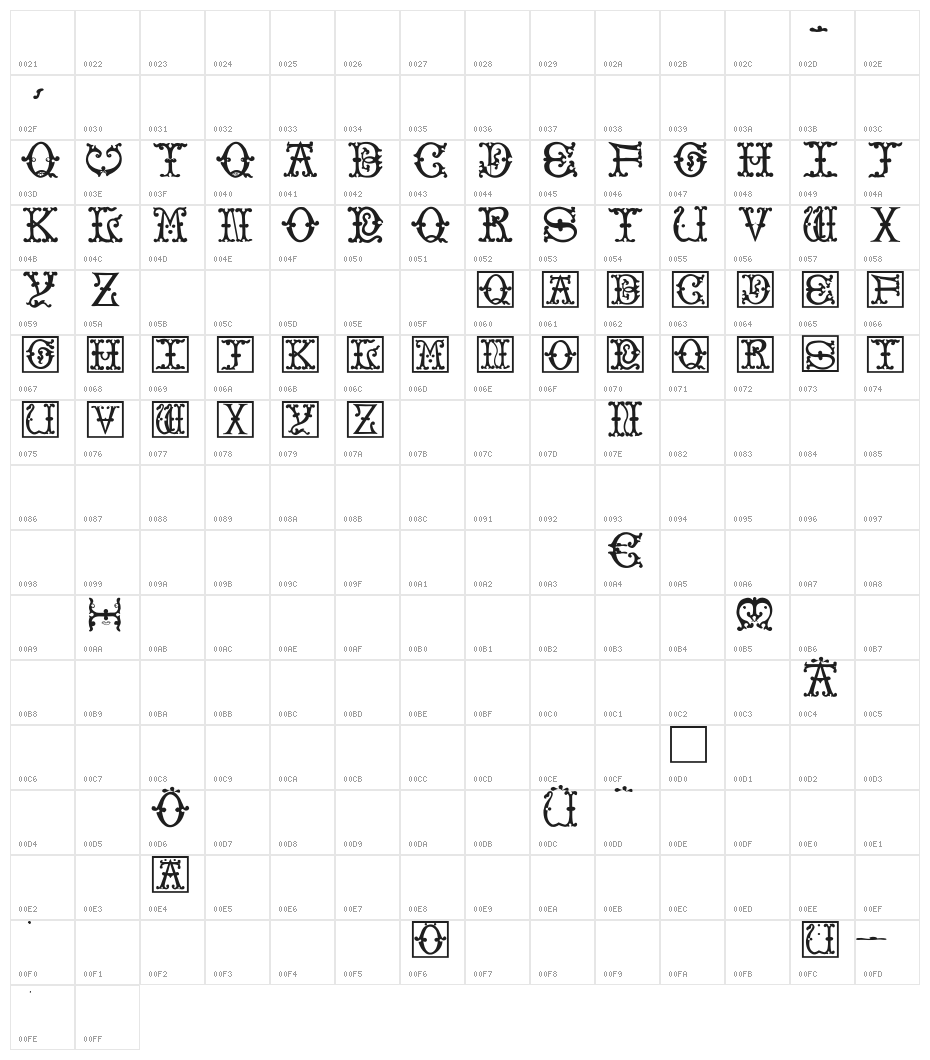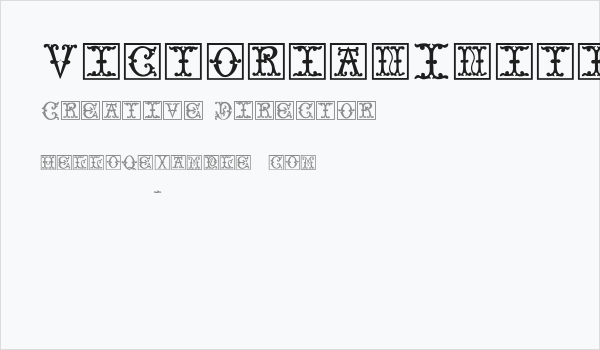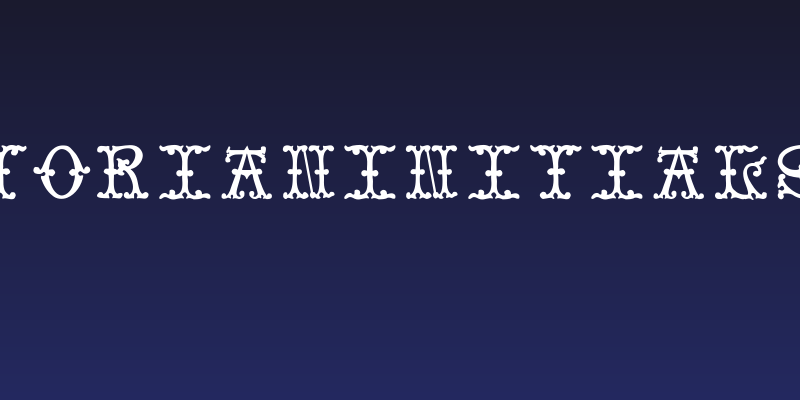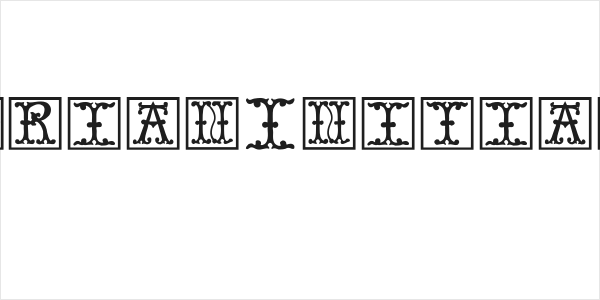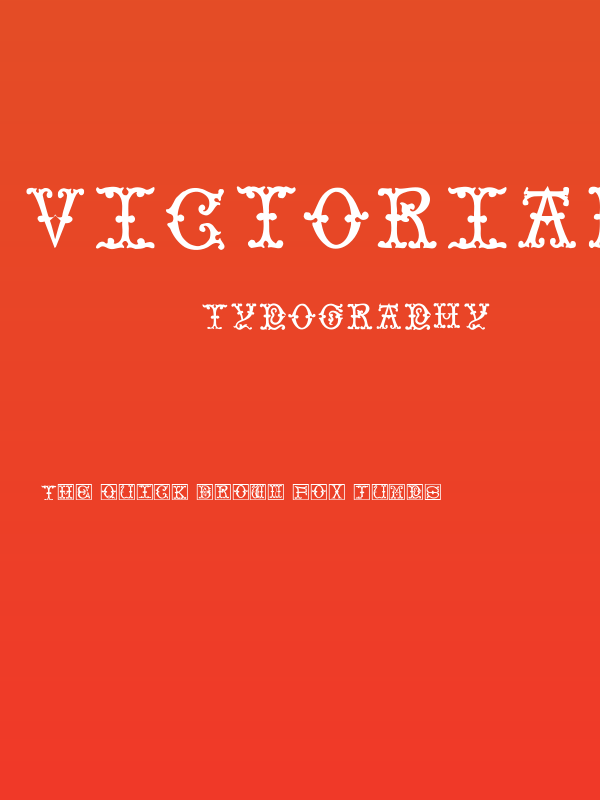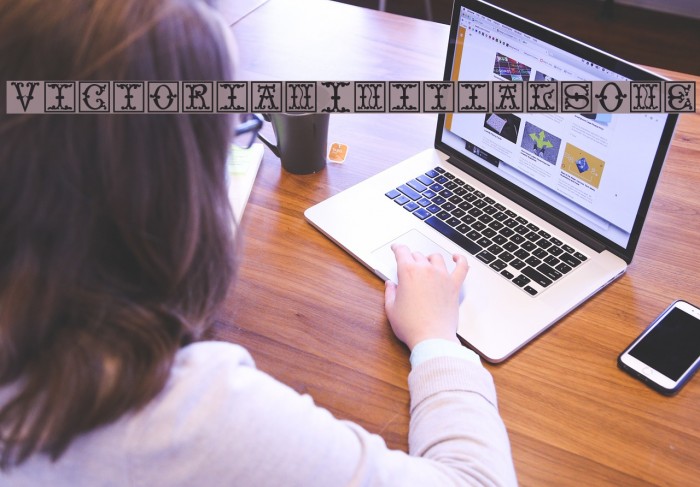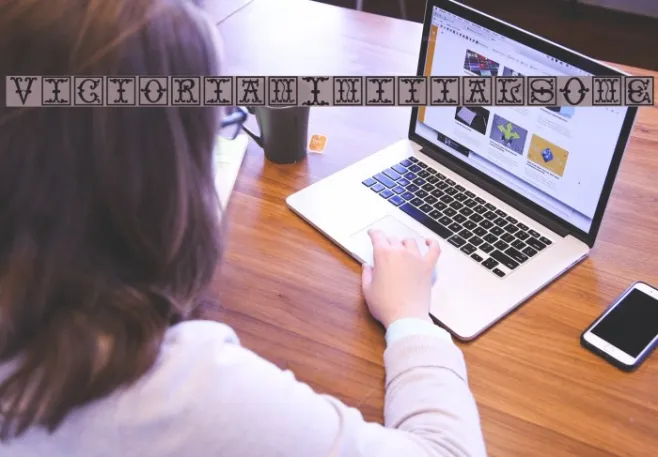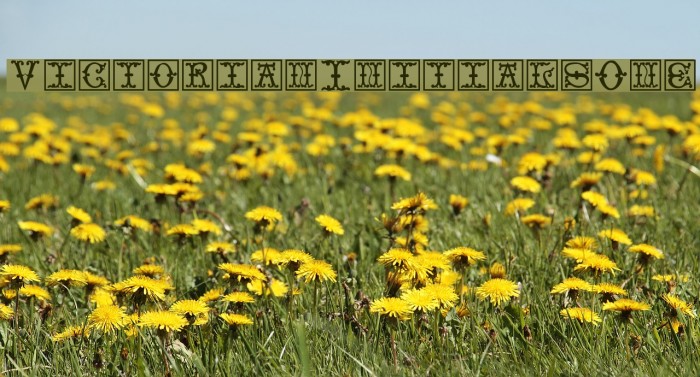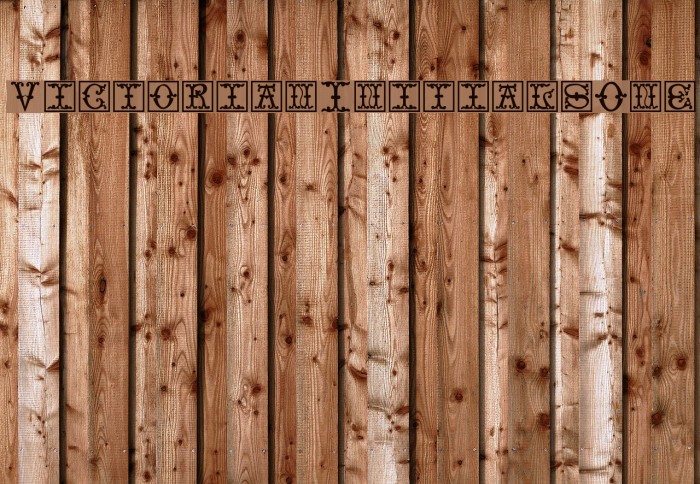
VictorianInitialsOne Font
VictorianInitialsOne Description
This font is a decorative and ornate typeface that draws inspiration from Victorian-era aesthetics. Each letter is embellished with intricate flourishes and embellishments, giving it a highly stylized and artistic appearance. The uppercase letters are particularly elaborate, featuring bold strokes and detailed serifs that evoke a sense of grandeur and elegance. The font is designed to capture attention and convey a sense of historical charm, making it ideal for projects that require a touch of vintage sophistication. The boxed version of the letters adds an additional layer of formality and structure, enhancing its decorative appeal.
| Proposed Projects | Ideal for wedding invitations, vintage-themed posters, book covers, and branding that requires a historical or elegant touch. |